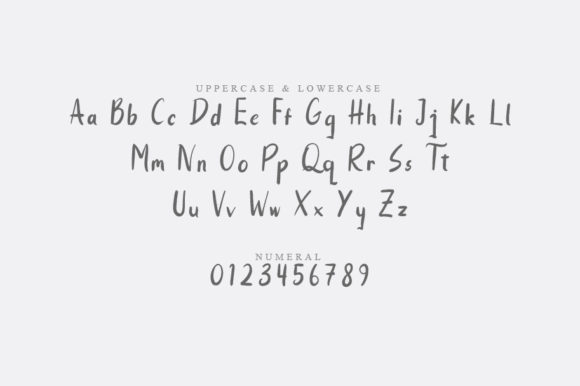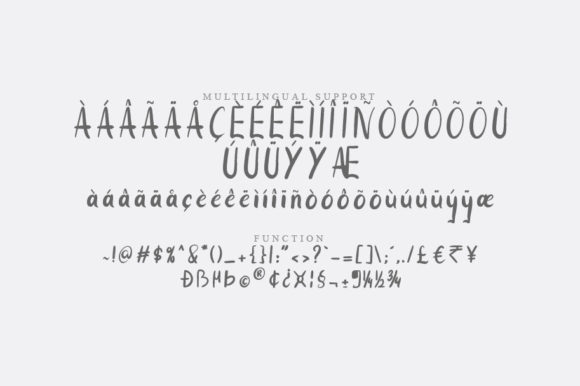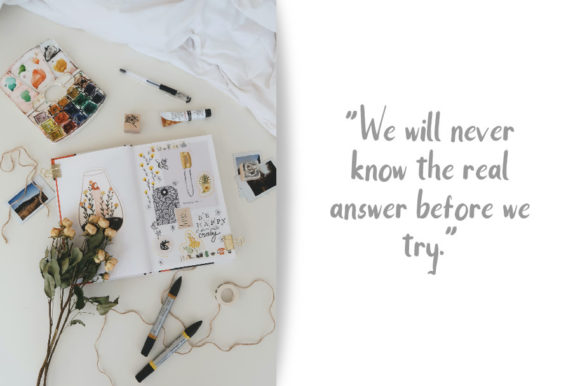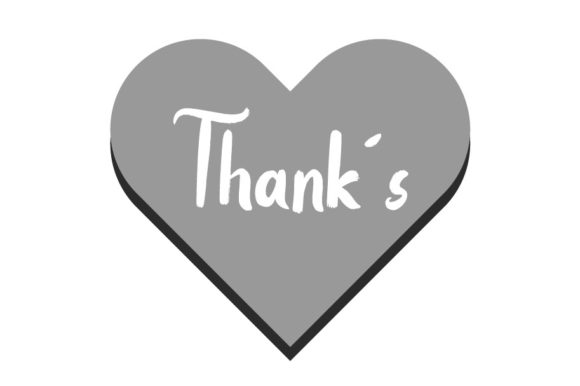
About Sketch Font
Sketch is a captivating and timeless handwritten font that brings a touch of charm to your design projects. With its distinctive and artistic flair, this font is an excellent choice for crafting eye-catching logos, impactful branding, and memorable quotes.
The uniqueness of each letter in Sketch adds a layer of creativity and individuality to your designs. The font’s handcrafted quality imparts a sense of authenticity and personality, making it a perfect fit for projects that require a personal and human touch.
Whether you’re working on a logo for a creative business, developing a brand identity that stands out, or seeking to create visually engaging quotes, Sketch has the versatility to meet your needs. Its timeless appeal and elegant lines make it a font that can adapt to a wide range of design styles, from classic to contemporary.
As you integrate Sketch into your design work, you’ll witness how each letter comes alive, adding depth and character to your compositions. The font’s ability to capture attention and convey emotion makes it a valuable tool for designers who want to create memorable and impactful visuals.
Incorporating Sketch into your projects is a surefire way to infuse them with a touch of artistic elegance and a timeless quality. With every stroke and curve, this font breathes life into your designs, helping you achieve stunning results that leave a lasting impression.